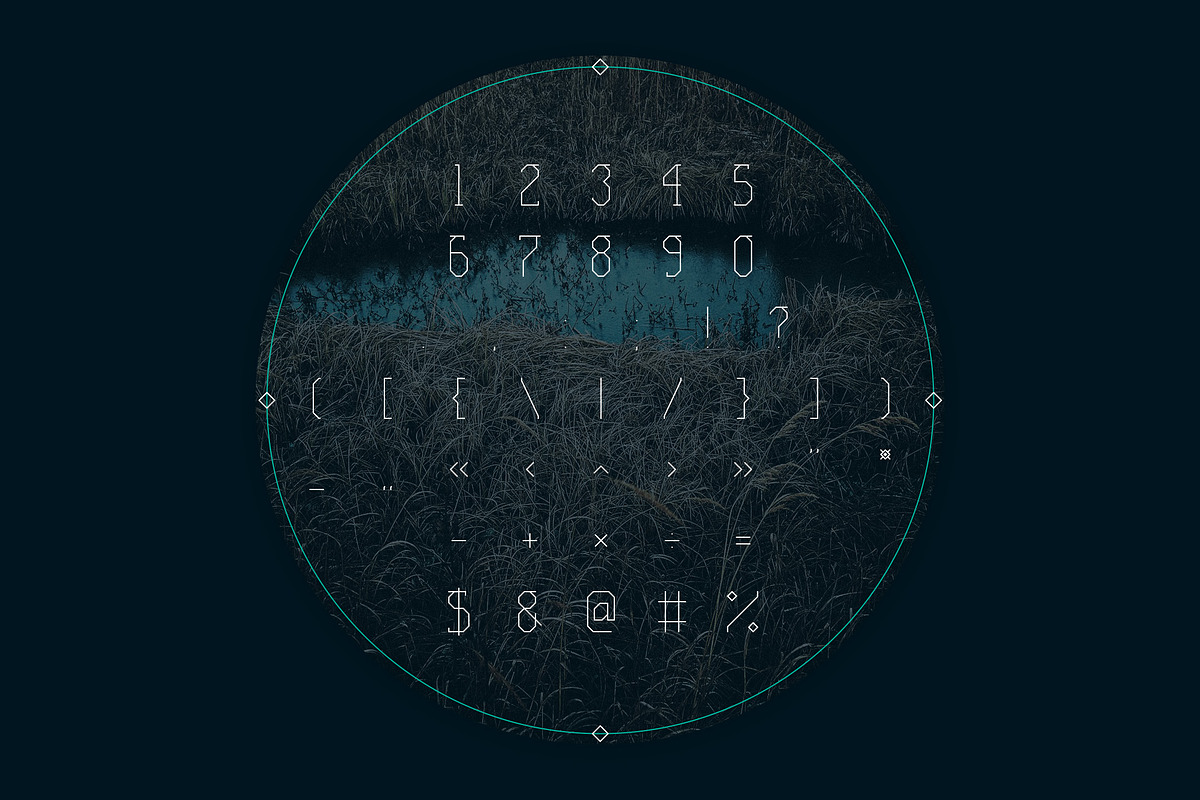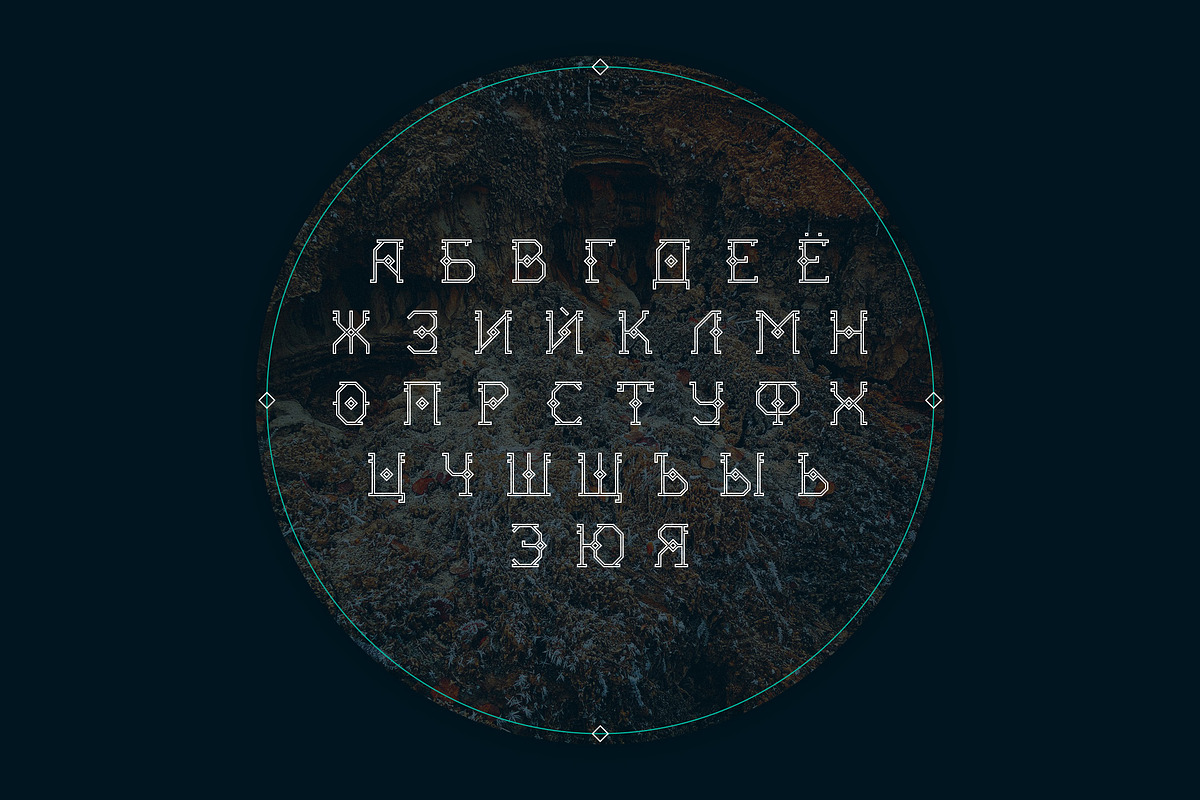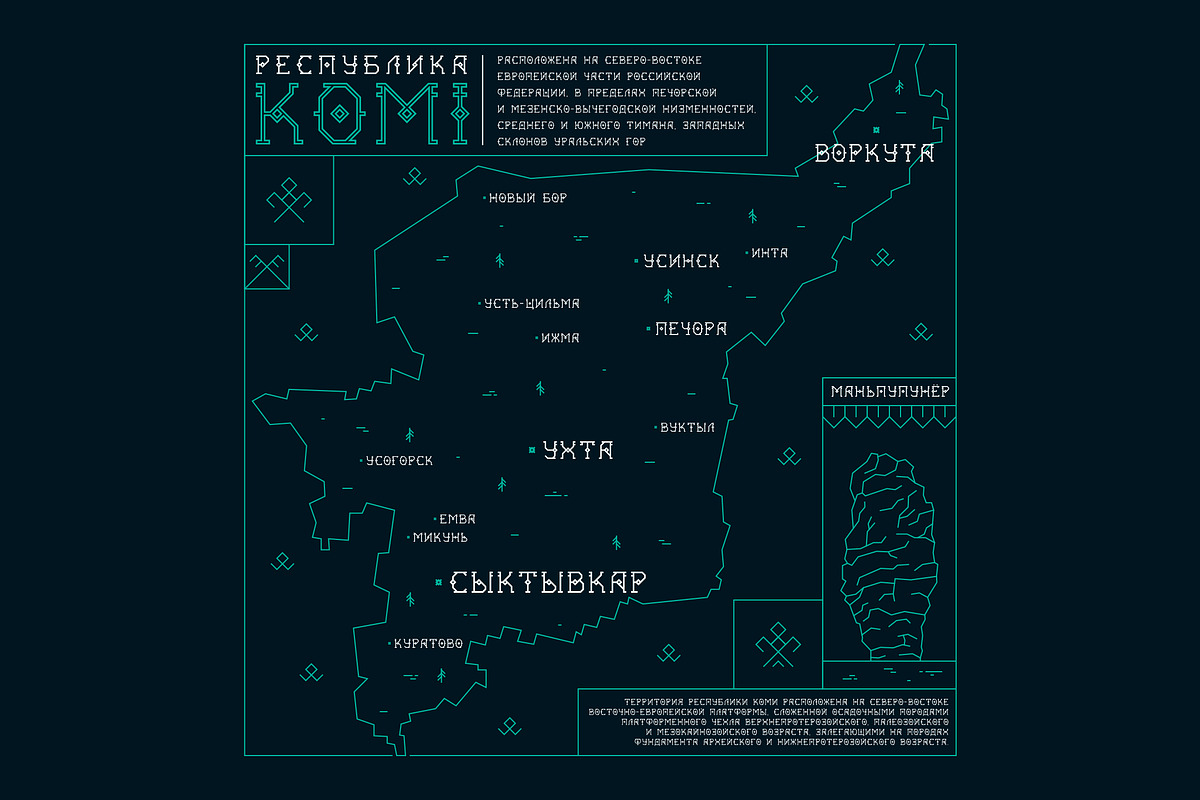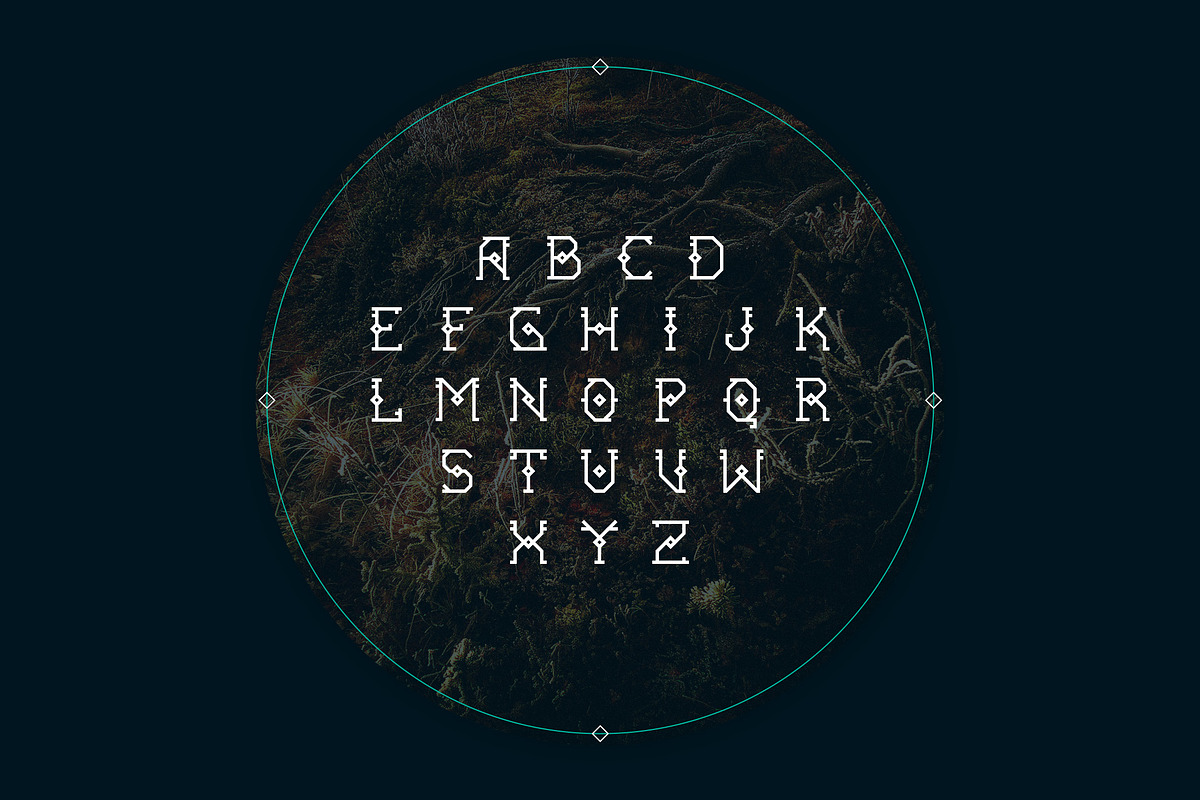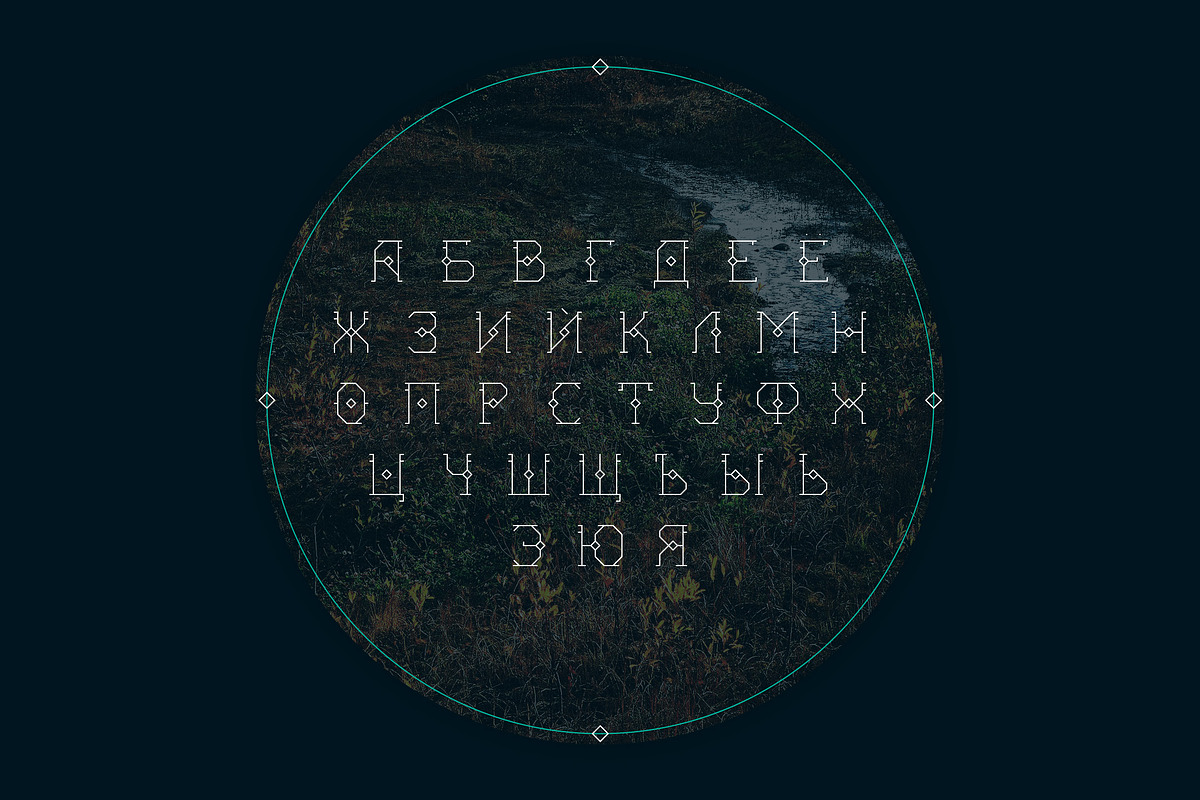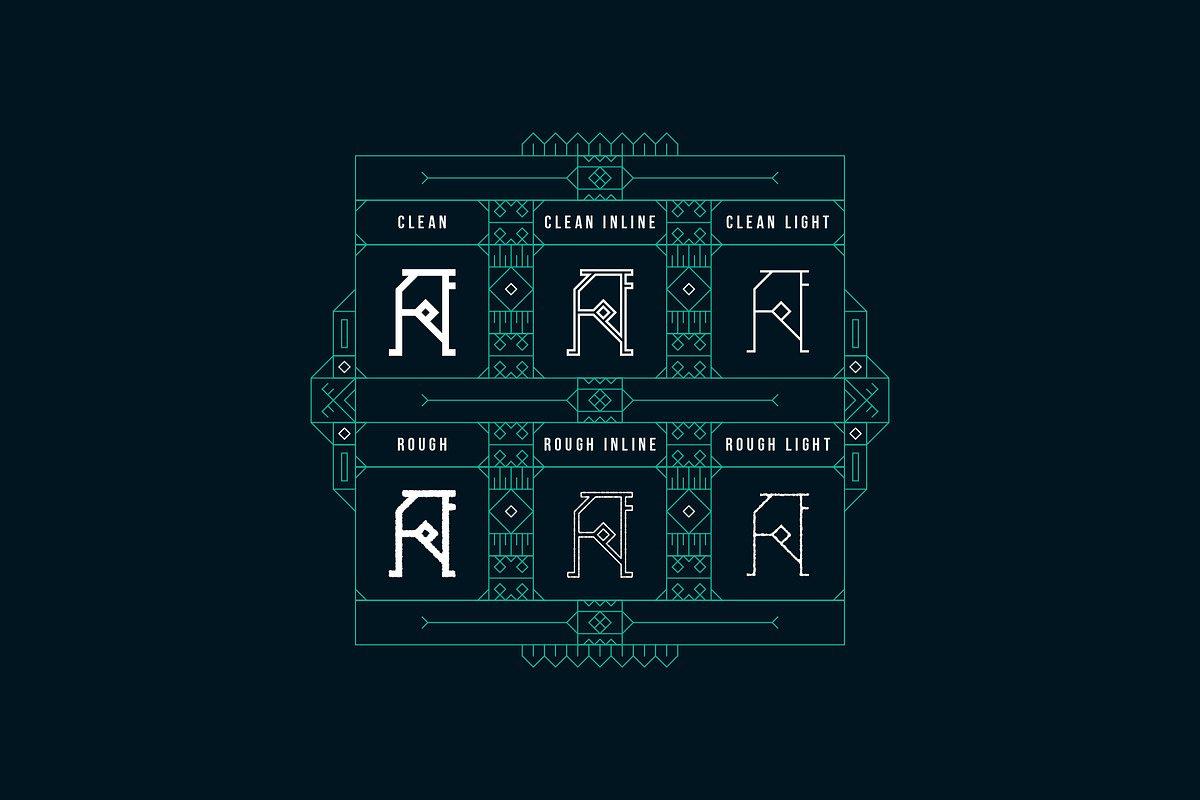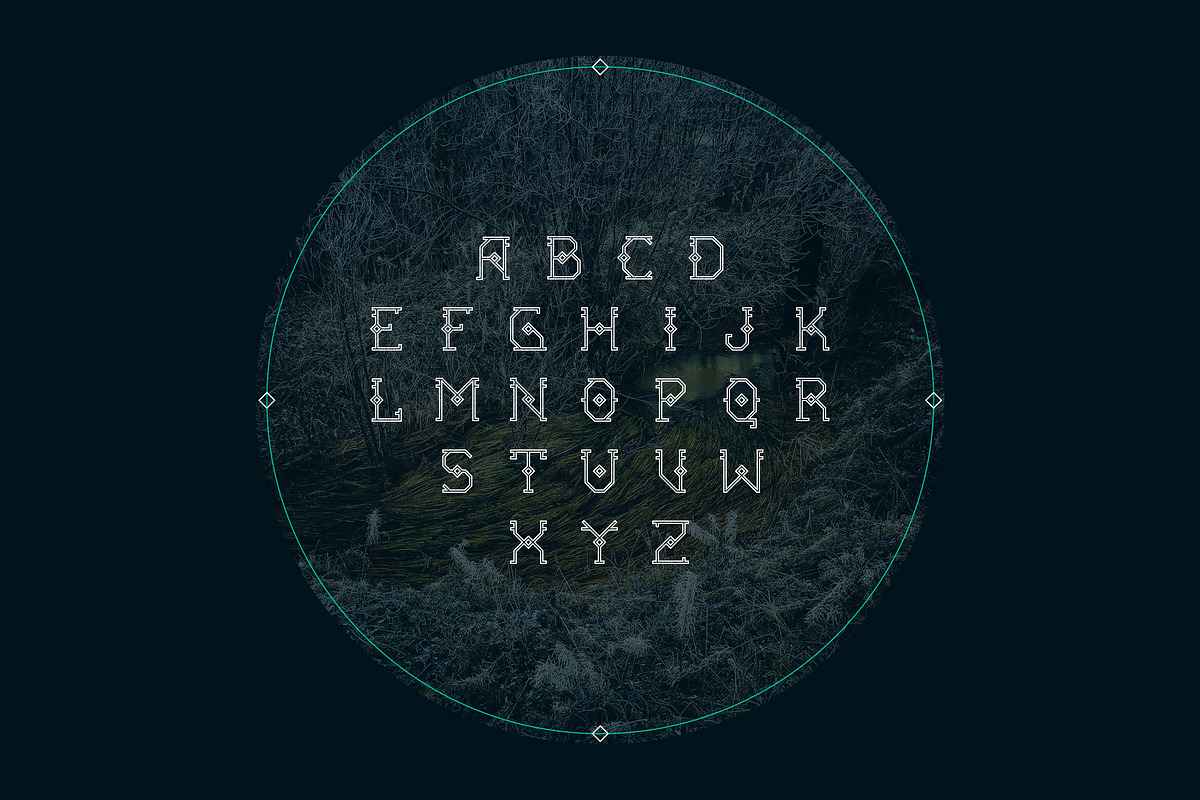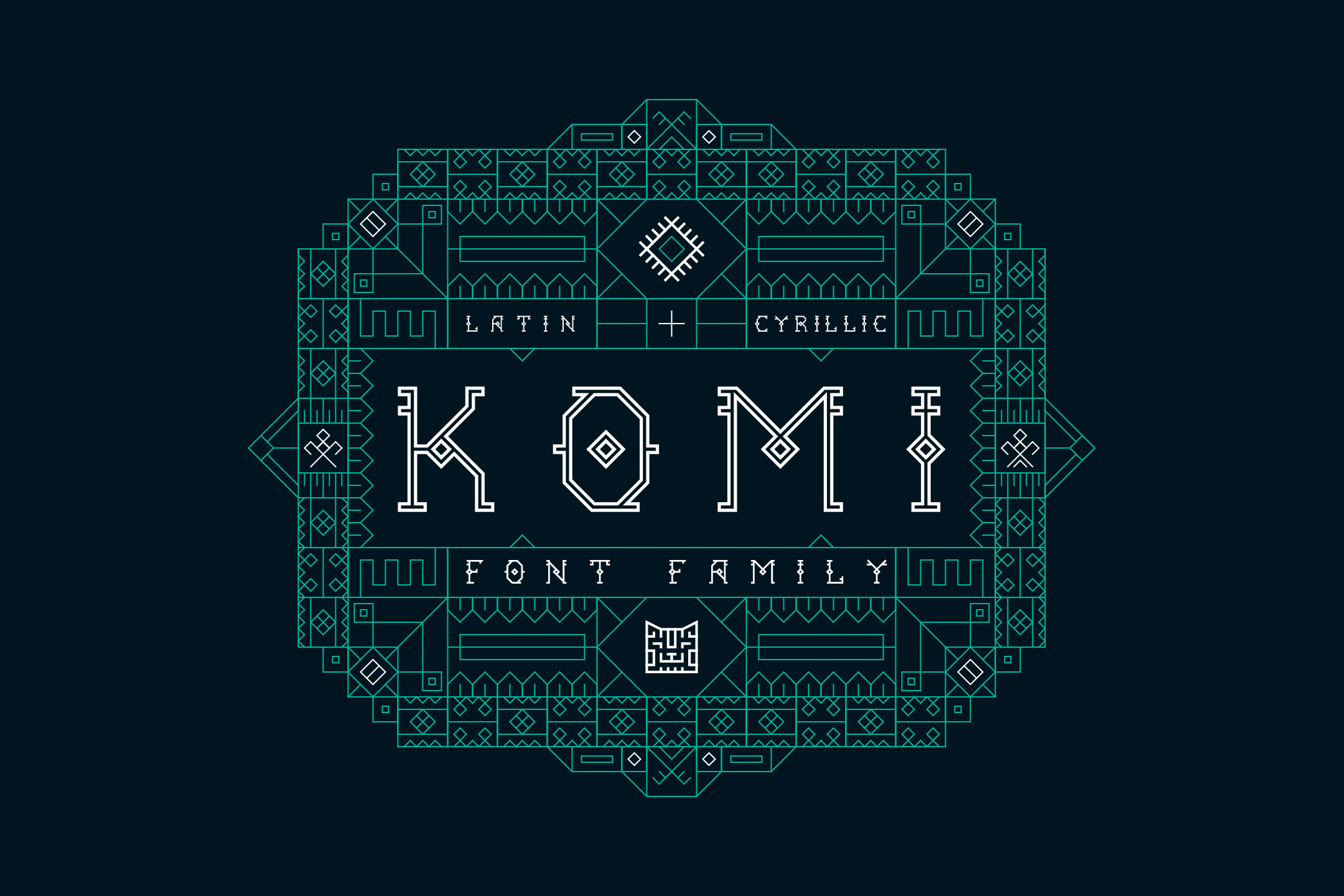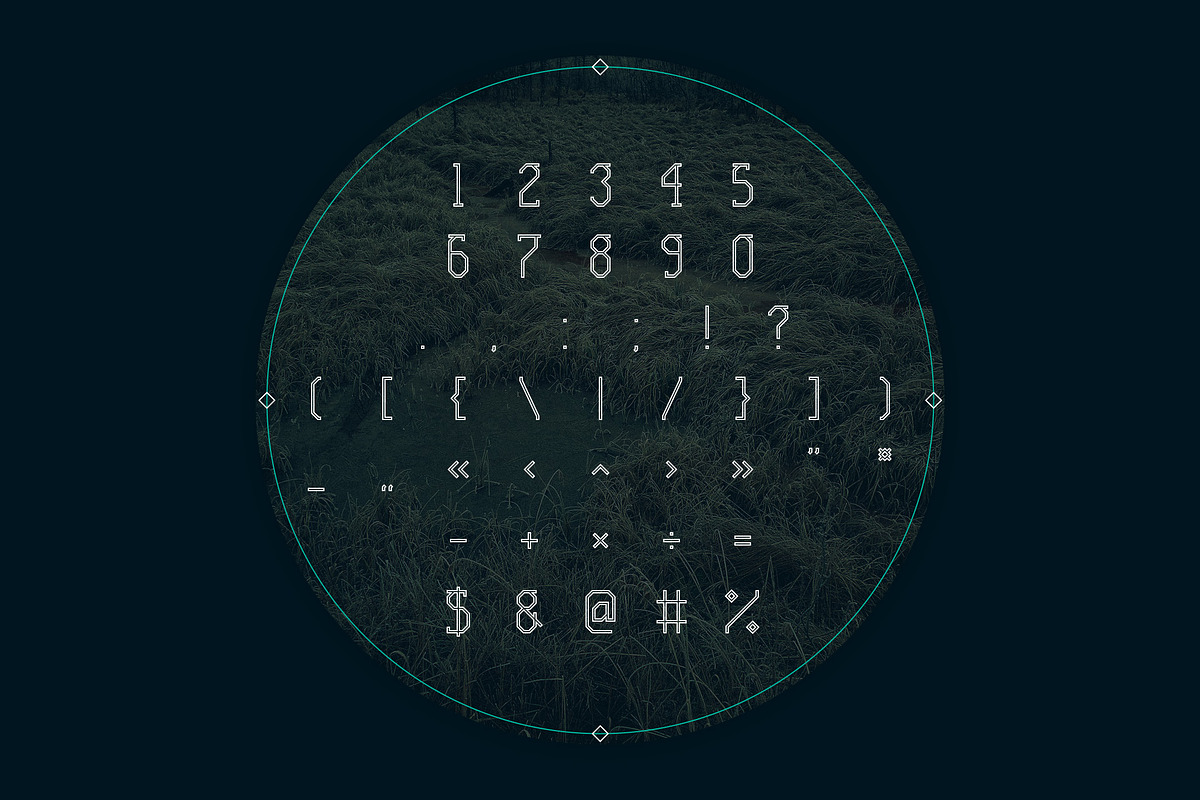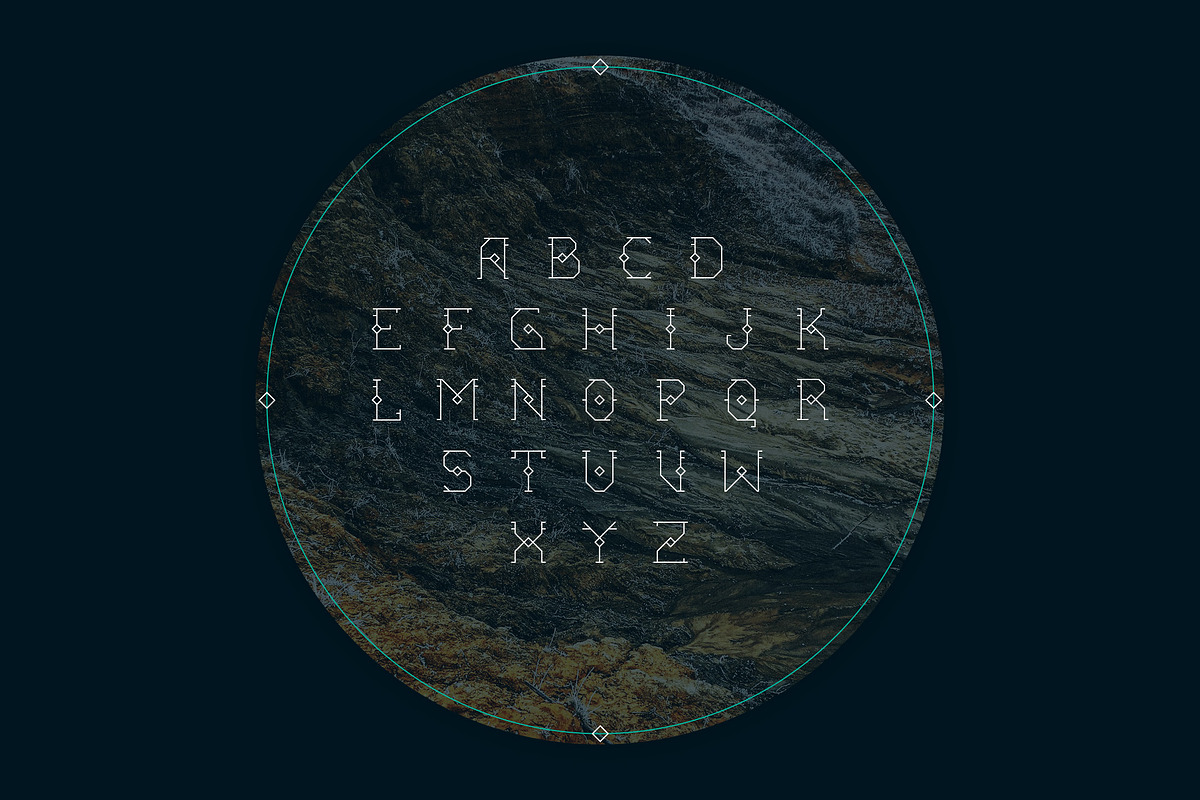
KOMI FONT FAMILY
KOMI outline geometric fonts collection with latin and cyrillic alphabets.
◉ 6 fonts:
- KOMI Clean (FREE)
- KOMI Clean inline
- KOMI Clean light
- KOMI Rough
- KOMI Rough inline
- KOMI Rough light
◉ Latin, cyrillic